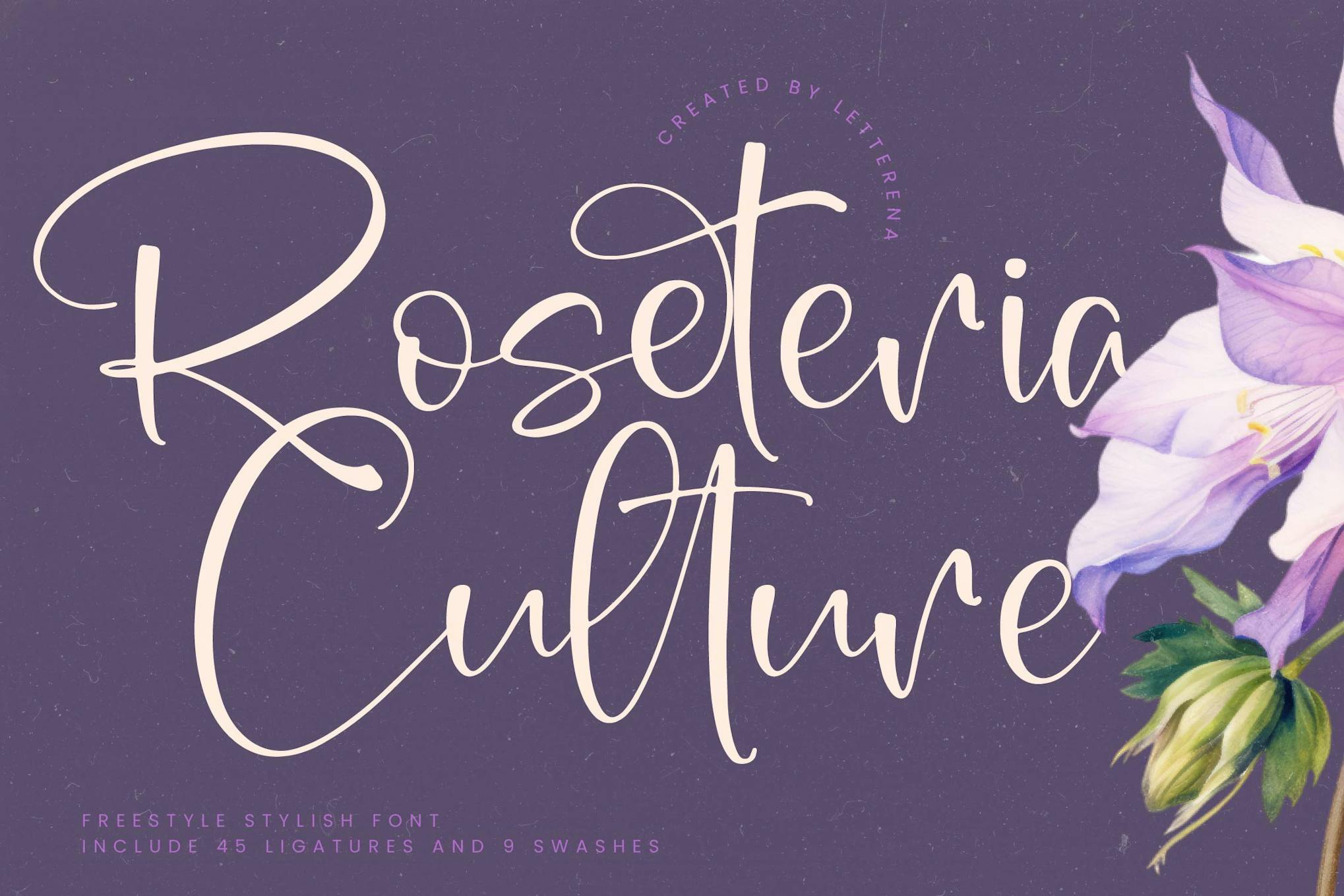
Roseteria Culture Freestyle Stylish Font
The Roseteria Culture Freestyle Stylish Font is perfect for cultural arts branding, bohemian lifestyle campaigns, artistic gallery exhibitions, creative workshop materials, multicultural celebration events, expressive fashion labels, artistic coffee shop signage, cultural festival promotions, creative studio identities, and diverse community communications.
What makes the Roseteria Culture Freestyle Stylish Font so exciting is its vibrant celebration of cultural diversity with freestyle artistic expression that creates a captivating fusion of global aesthetics and contemporary creative freedom. This dynamic typeface features expressive letterforms, cultural design influences, and freestyle character movements that perfectly capture the essence of artistic diversity and multicultural creativity. The font's culturally rich personality and stylish freedom make it an exceptional choice for brands seeking to communicate cultural appreciation, artistic expression, and authentic diversity with vibrant creative energy that celebrates global artistic heritage.
The Roseteria Culture Freestyle Stylish Font family includes cultural variations and artistic alternates, featuring diverse stylistic options, expressive character sets, and multicultural design elements. Each variation maintains the signature cultural appeal while offering different levels of artistic expression and freestyle creativity, giving designers extensive possibilities for crafting culturally rich communications and diverse brand personalities that honor global artistic traditions.
This exceptional Roseteria Culture Freestyle Stylish Font Free Download represents the perfect cultural typography solution for artists and brands who want to infuse their projects with authentic cultural richness and freestyle artistic expression that celebrates diversity. Whether you're developing multicultural brand identities, creating artistic cultural events, or designing expressive creative content, this versatile cultural font delivers inspiring results that resonate with audiences seeking genuine cultural appreciation and artistic freedom.
The expressive cultural characteristics of Roseteria Culture Freestyle Stylish Font showcase masterful artistic typography design, with each letter carefully crafted to reflect cultural beauty and freestyle creativity while maintaining excellent readability and visual appeal. The font's comprehensive character set includes uppercase and lowercase letters, numerals, artistic punctuation, and cultural symbols, ensuring complete functionality for diverse artistic projects and international multicultural applications.
Expertly designed for both digital and print cultural applications, this beautiful font maintains its artistic character and cultural elegance across various sizes and formats. From large-scale cultural installations to detailed artistic marketing materials, Roseteria Culture Freestyle Stylish Font adapts creatively to any cultural design challenge while preserving its distinctive multicultural personality and freestyle artistic charm.